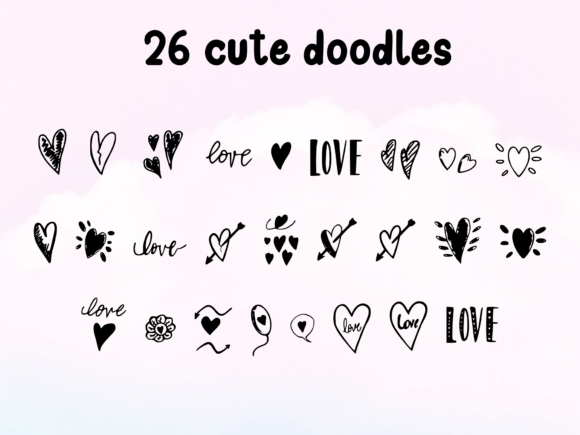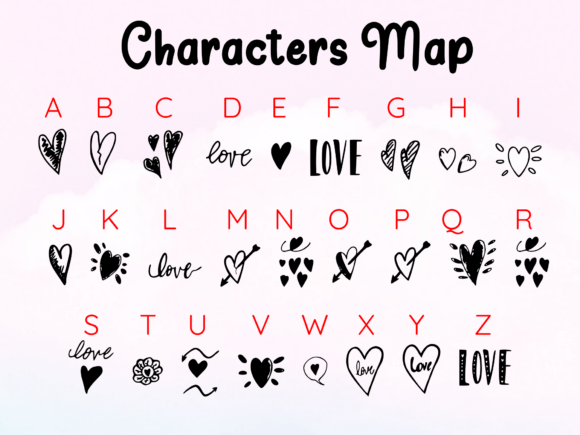
Introduction to Love Doodles Font
Say hello to Love Doodles, a delightful and charming font where every character is a unique love-themed clipart.
Designed with creativity and joy, this font is perfect for spreading love and warmth through your designs With its playful and romantic elements, Love Doodles is ideal for a wide range of projects, including greeting cards, wedding invitations, t-shirt designs, stickers, social media graphics, and so much more.
Key Features of Love Doodles Font